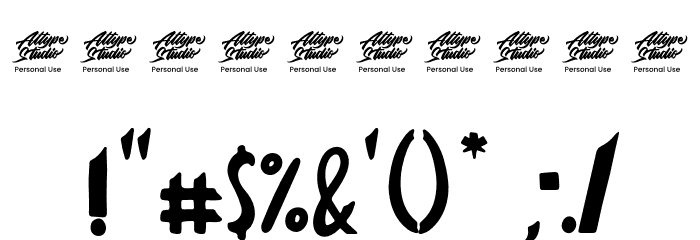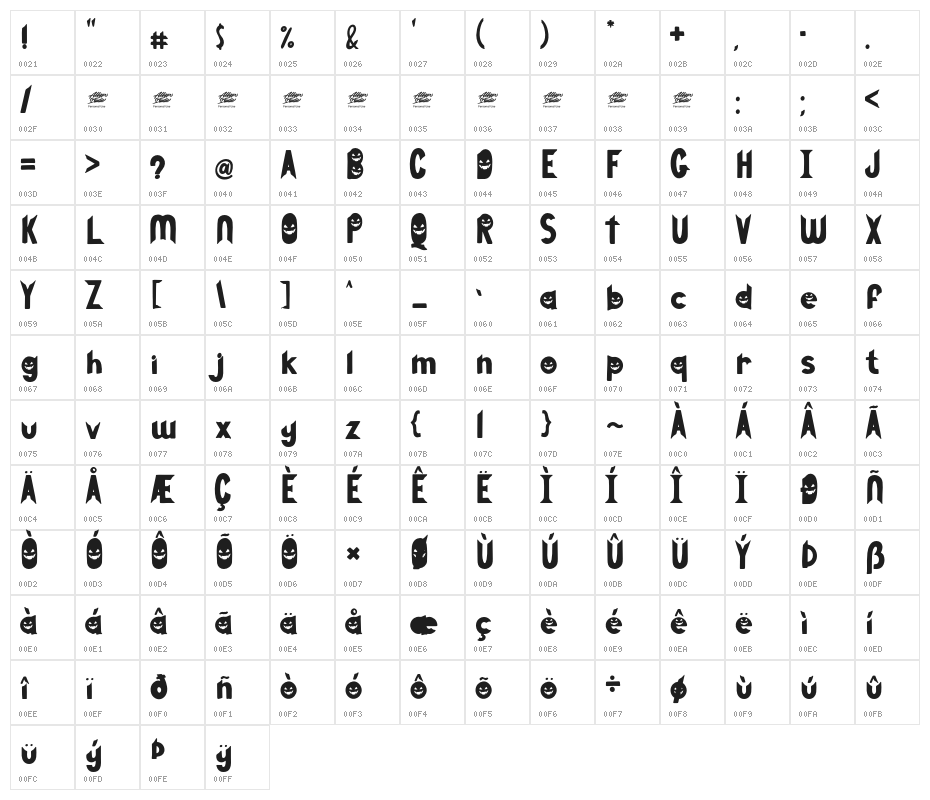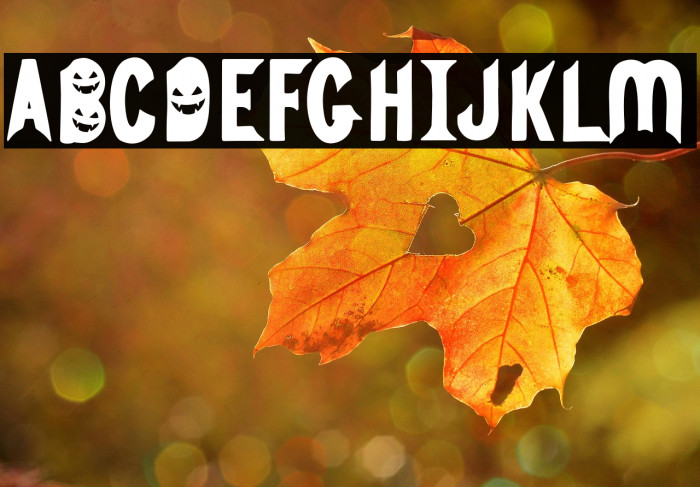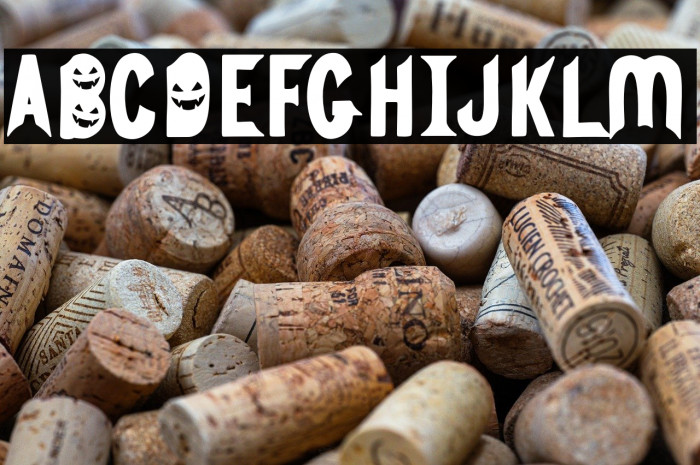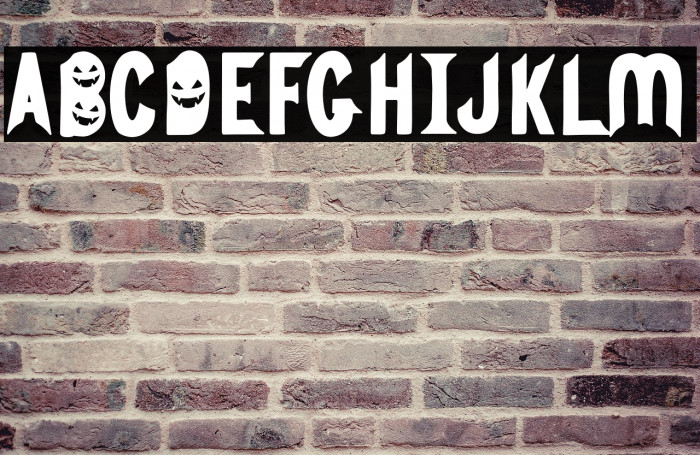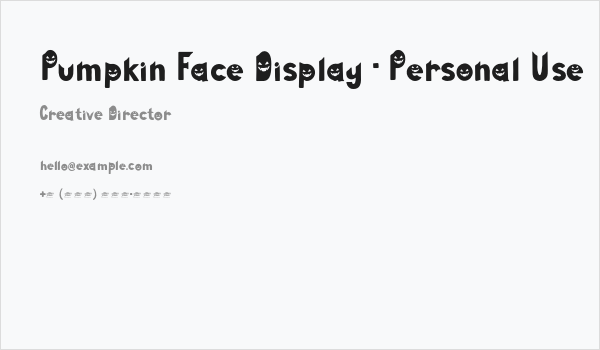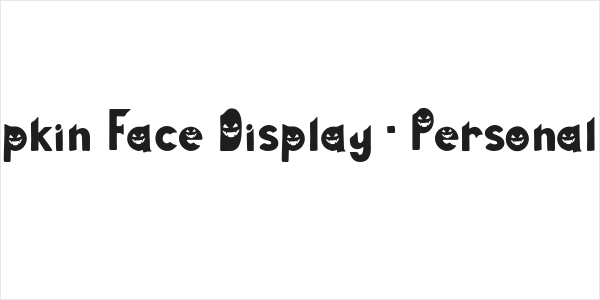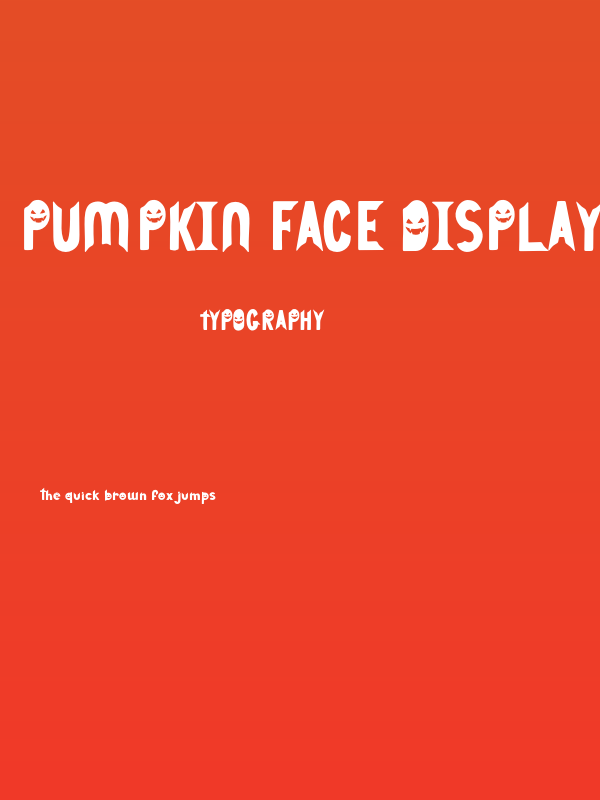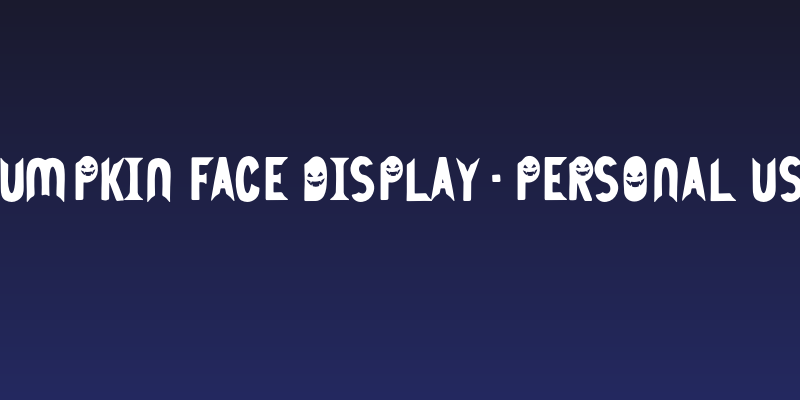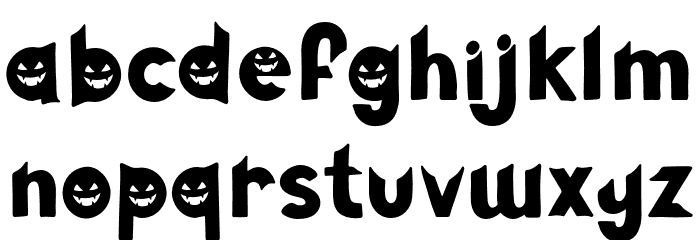
Pumpkin Face Display - Personal Use Font
Pumpkin Face Display - Personal Use Description
This font exudes a playful and spooky vibe, perfect for Halloween-themed projects. The uppercase and lowercase letters are designed with a bold, jagged style that mimics the appearance of carved pumpkins, complete with mischievous grins. The characters have a slightly uneven baseline, adding to the quirky and whimsical feel. The numbers and special characters maintain this theme, ensuring a cohesive look across all text elements. This font is ideal for creating eye-catching headlines, posters, and invitations that require a touch of seasonal fun.